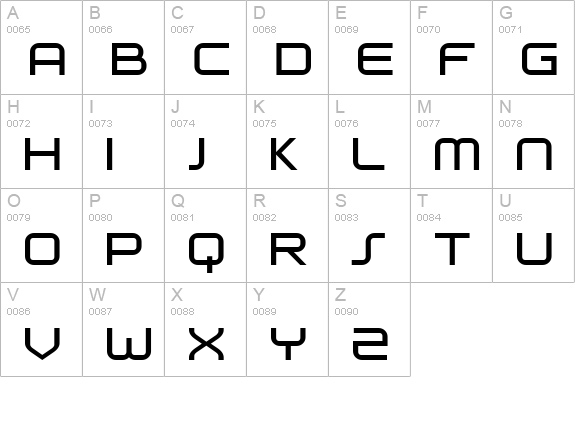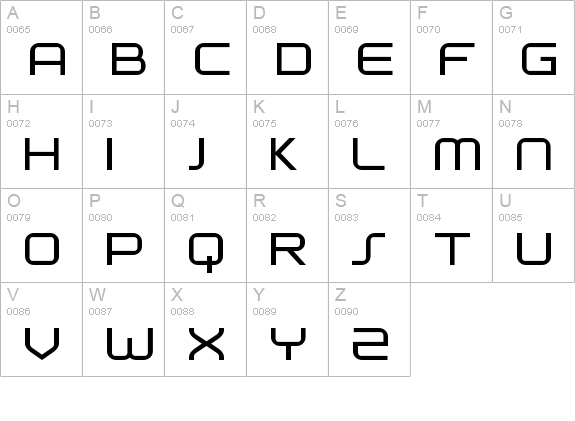
Shazbot Font Details
Introducing Shazbot font, a captivating and versatile typeface that is sure to leave a lasting impression. With its unique and innovative design, Shazbot effortlessly combines modern aesthetics with a touch of vintage charm, making it the perfect choice for any creative project. The beauty of Shazbot lies in its versatility. Whether you're designing a logo, crafting a poster, or creating eye-catching social media graphics, this font will elevate your work to new heights. Its clean lines and bold letterforms exude a sense of confidence and professionalism, while its subtle curves and intricate details add a hint of playfulness and personality. But what sets Shazbot apart from other fonts on the market is the fact that it is freely available to download at FontsMarket.com. Yes, you read that right - this exceptional typeface can be yours at absolutely no cost. We believe that great design should be accessible to all, and with Shazbot, you can unleash your creativity without breaking the bank. Downloading Shazbot is a breeze. Simply head over to FontsMarket.com, search for Shazbot, and with just a few clicks, you'll have this remarkable font at your fingertips. Compatible with both Mac and PC, Shazbot seamlessly integrates into your design software, allowing you to effortlessly bring your ideas to life. So why wait? Allow Shazbot to be the missing piece in your design puzzle. Whether you're a seasoned designer or just starting out, this font will undoubtedly become an invaluable addition to your creative toolkit. Download Shazbot today and let your imagination soar.